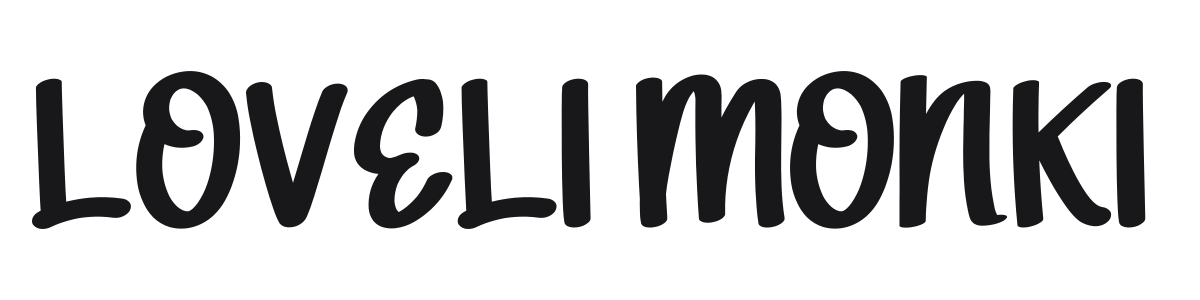
Loveli Monki
Loveli Monki is a bold upright casual script with chunky rounded strokes and a hand-lettered personality. The thick near-monoweight weight and slight baseline bounce give it an energetic, approachable quality without feeling chaotic. It works well on packaging, logos, and any design that needs a warm, informal touch.